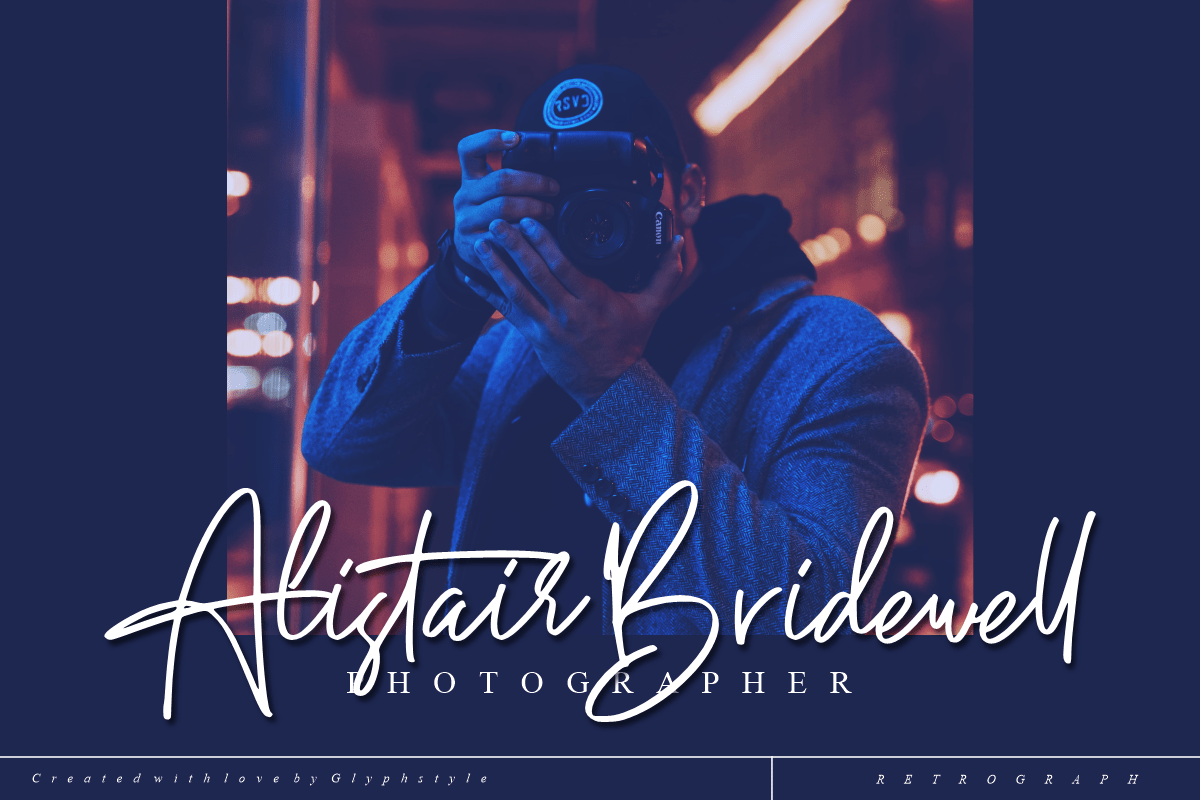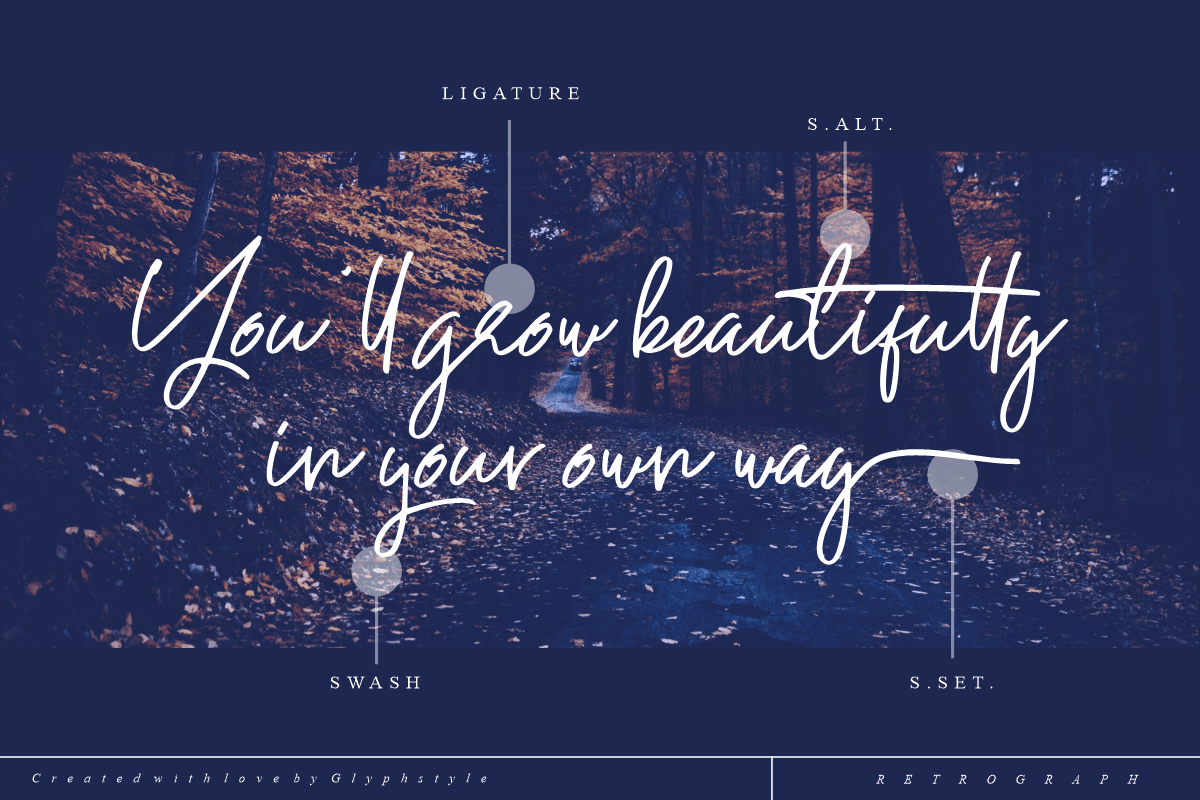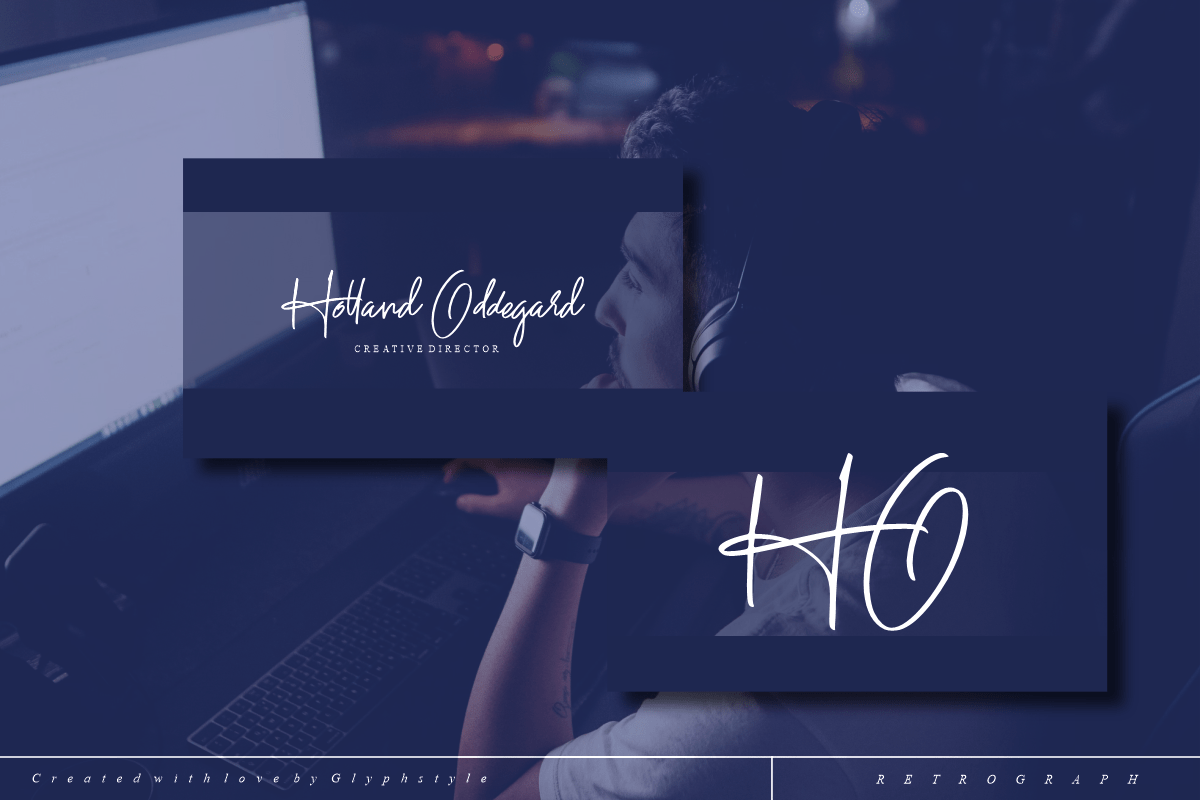
Retrograph Font is a handwritten font that looks neat and clear. Consistent lines make this font neat and beautiful. Retrograph Font is perfect for branding projects, logos, wedding designs, social media posts, advertisements, product packaging, product designs, labels, photography, watermarks, invitations, stationery, and any project that requires a sense of handwritten-signature.